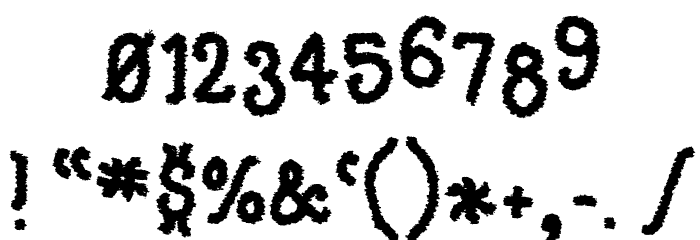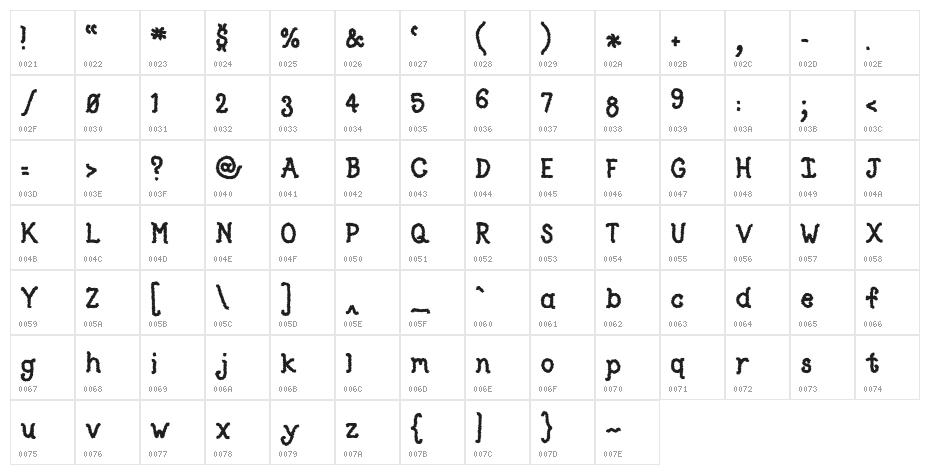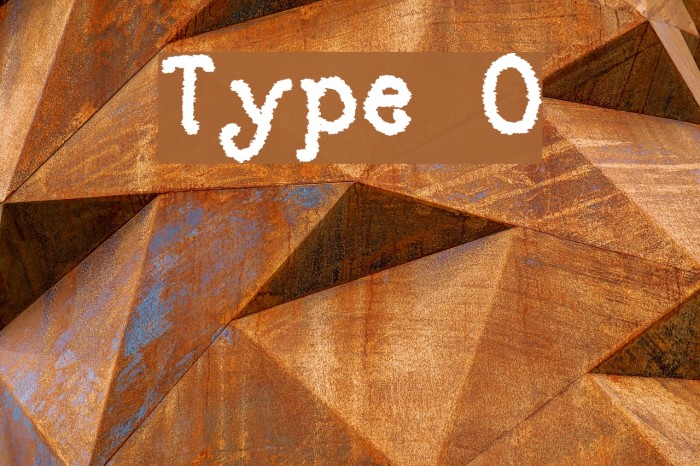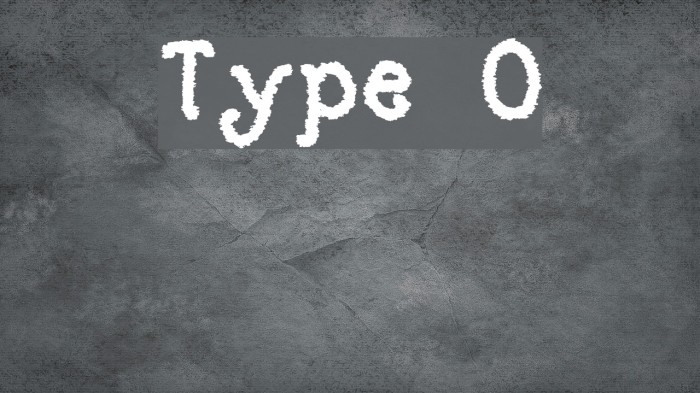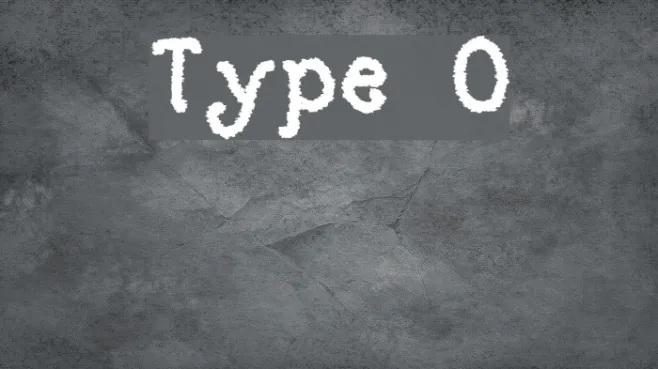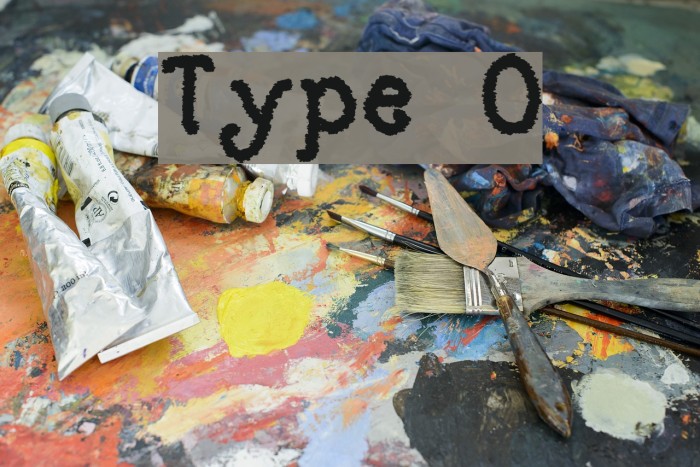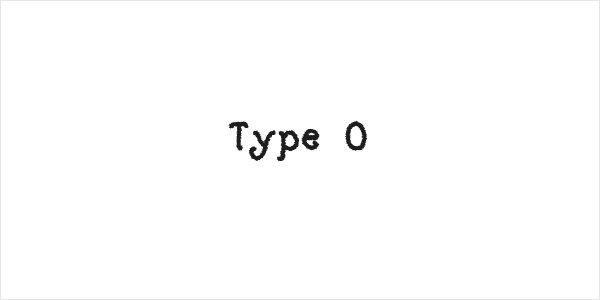
Type O Font
Type O Description
This font features a playful and textured design, reminiscent of hand-drawn or chalkboard lettering. The characters are bold and slightly irregular, giving them a whimsical and informal appearance. The uppercase and lowercase letters maintain a consistent style, with rounded edges and a slightly rough texture that adds character. Numbers and special characters follow the same design principles, ensuring a cohesive look across all glyphs. The font's unique style makes it stand out, making it suitable for creative and artistic projects.
| Overall Style | Playful, Artistic |
| Proposed Projects | Ideal for children's books, playful branding, greeting cards, and artistic posters. |